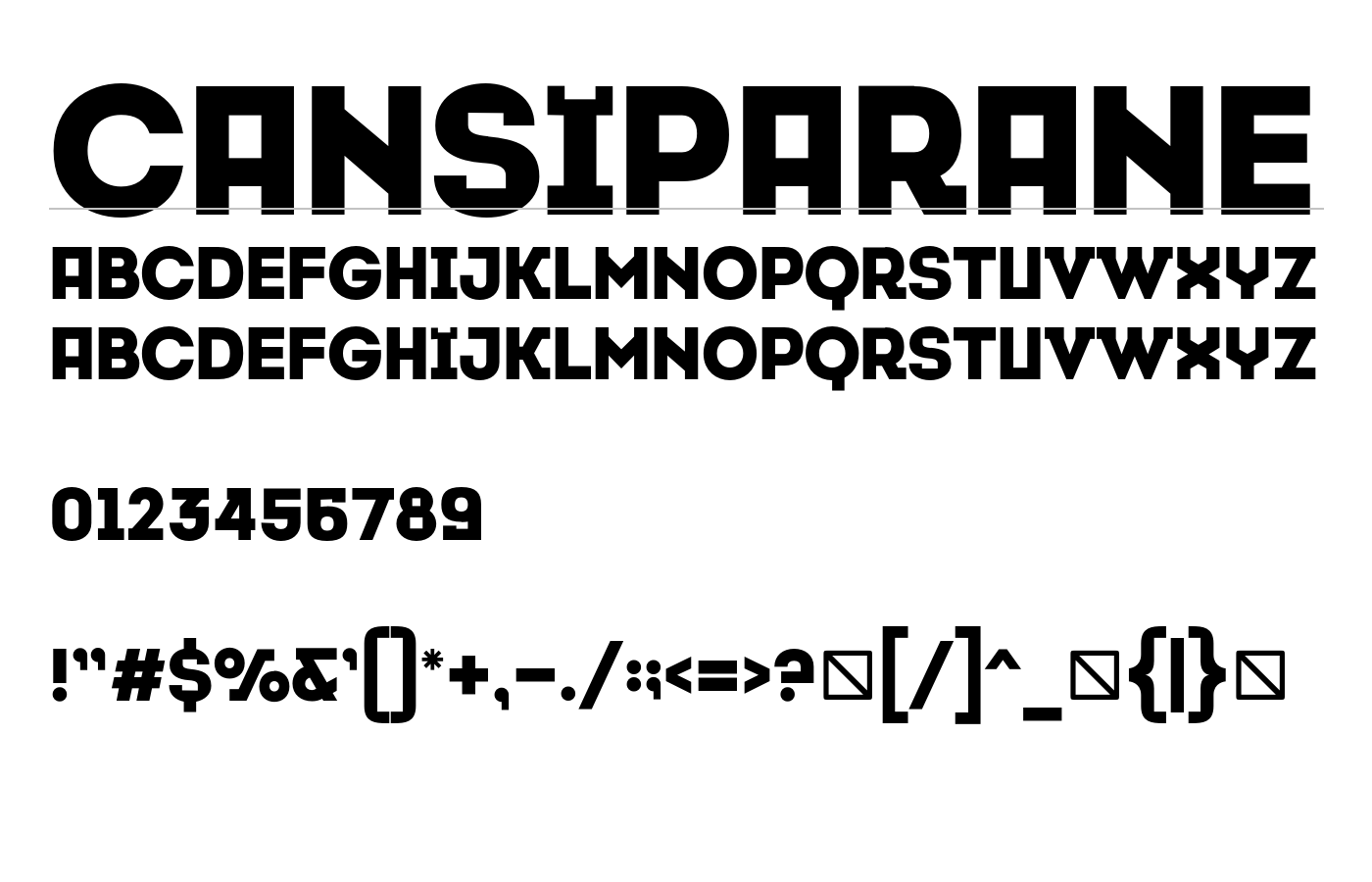
Cansiparane is a bold, geometric sans serif font with a strong, modern feel. Its heavy weight, squared shapes, and uniform stroke contrast lend it a sturdy and confident personality, making it ideal for impactful headlines, branding, and display use where a clean but assertive style is desired. This font works well for contemporary design projects seeking a straightforward yet distinctive look.
Cansiparane Font
About Cansiparane Font